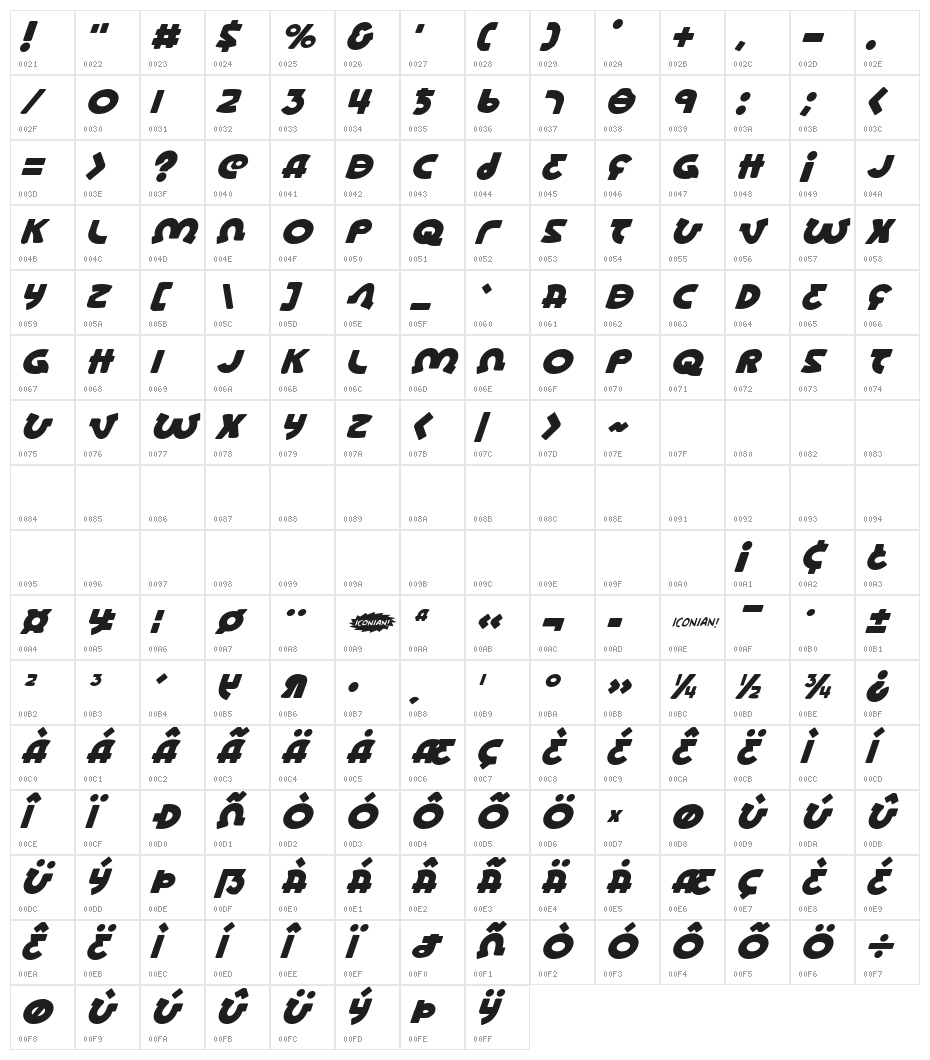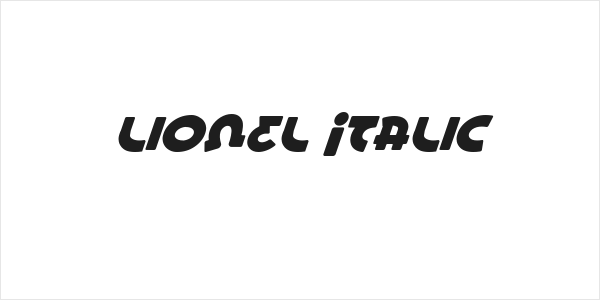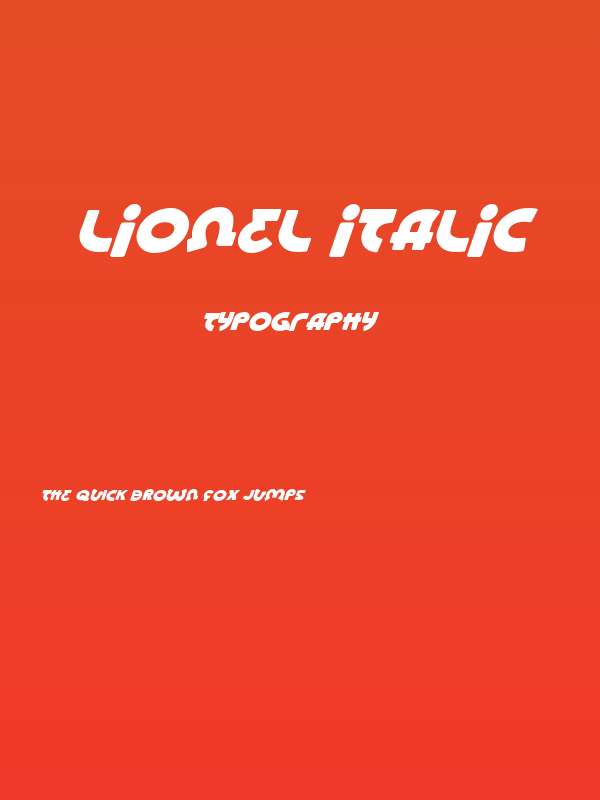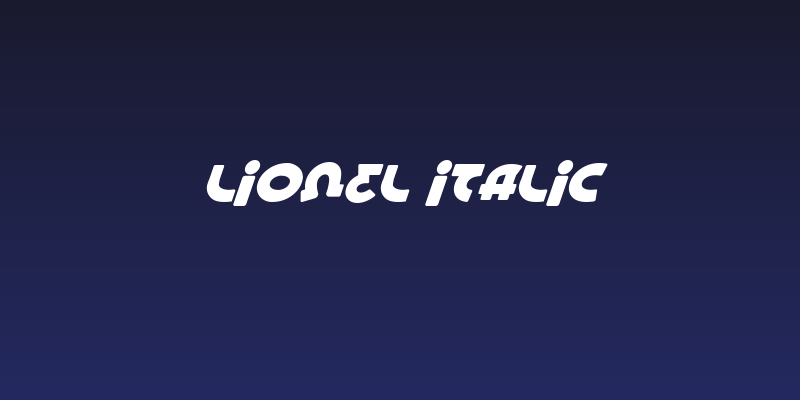
Lionel Italic Font
Lionel Italic Description
This font features a bold and dynamic style with a distinct italic slant, giving it a sense of movement and energy. The characters are thick and rounded, with a playful yet assertive appearance. The uppercase letters maintain a consistent height, while the lowercase letters are slightly smaller, creating a balanced look. The numbers and special characters follow the same bold and rounded design, ensuring uniformity across all elements. The overall style is modern and eye-catching, making it suitable for attention-grabbing headlines or creative projects.